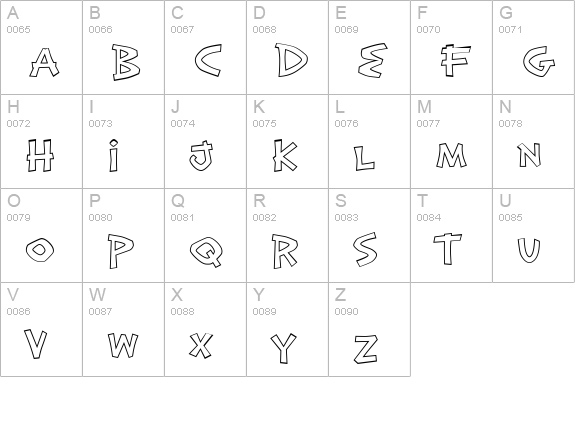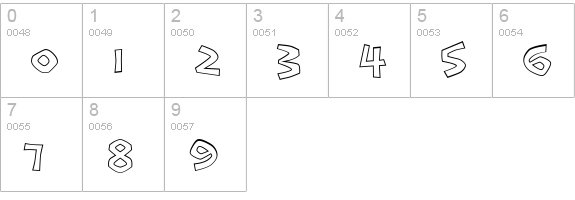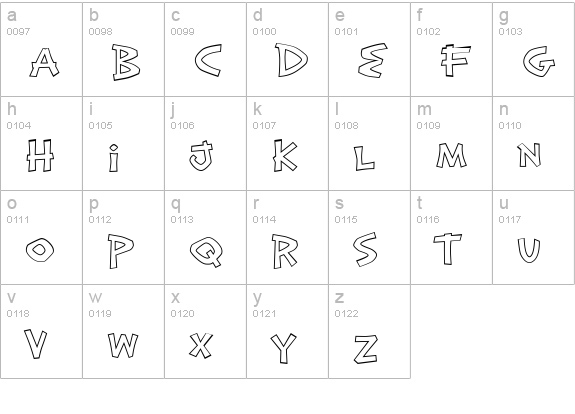
Exotic Island BTN Bold Out Font Details
Exotic Island BTN Bold Out is a strong, high-contrast variant in the Exotic typeface family \xE2\x80\x94 well suited to headlines, attention-grabbing titles, and strong calls-to-action.
Exotic Island BTN Bold Out font is a striking and adventurous typeface that exudes tropical vibes and exotic charm. Its bold and eye-catching design is perfect for creating bold headlines, posters, and branding materials that demand attention. The unique cut-out style of this font adds a modern and edgy touch to any project. And the best part? Exotic Island BTN Bold Out font is available for free download at FontsMarket.com! Embrace the spirit of adventure and bring a touch of the exotic to your designs with this stunning font. Let your creativity run wild and stand out from the crowd with Exotic Island BTN Bold Out font.